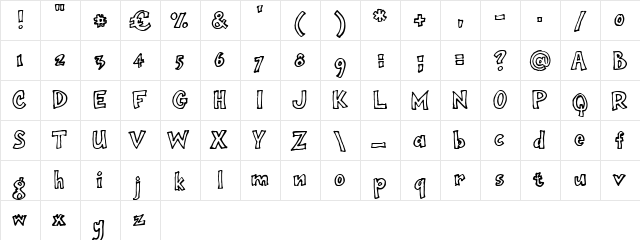
onepunchJim outline
Design Context for onepunchJim Typeface
onepunchJim brings ornamental detail and strong personality to headlines and identities, where visual impact matters more than quiet functionality.
Font Pairing: Pair with a clean neutral sans-serif for body copy to let onepunchJim's character lead without overwhelming the composition.
Pro Tip: Use onepunchJim exclusively at display sizes — it was designed to be seen, not read at length. Let a neutral companion handle body copy.